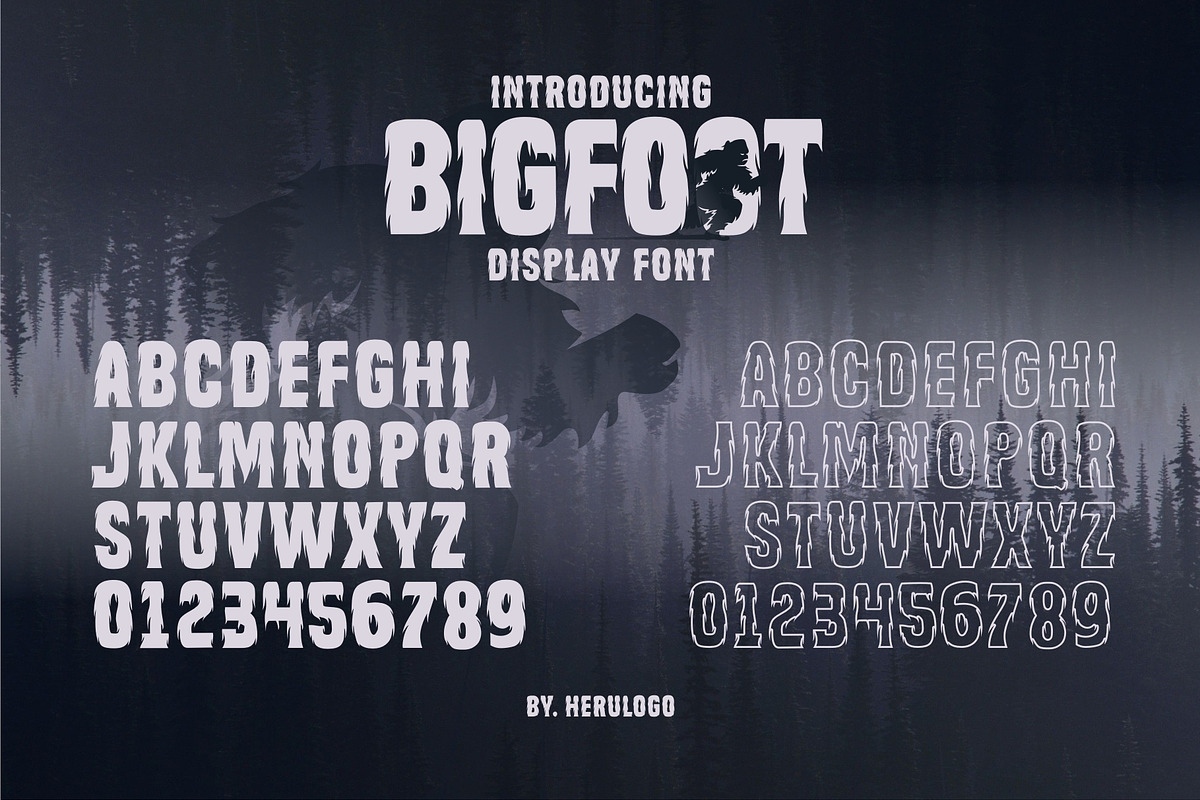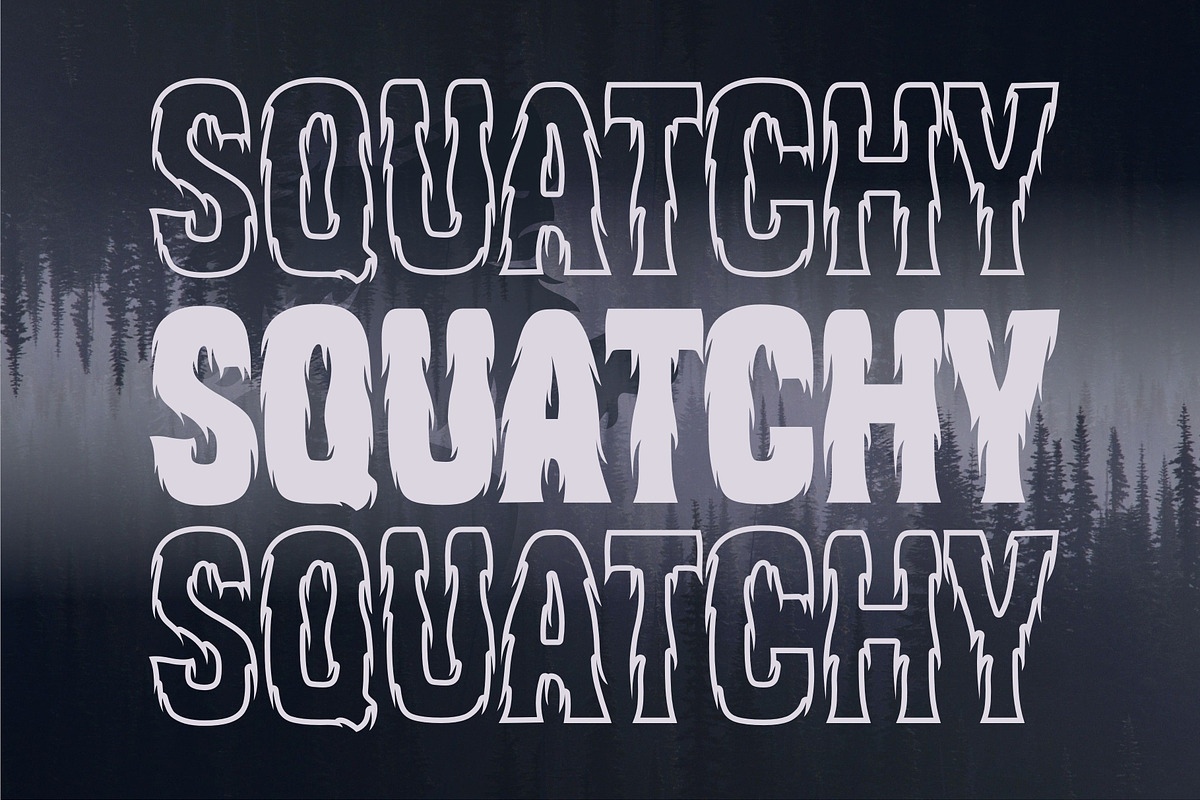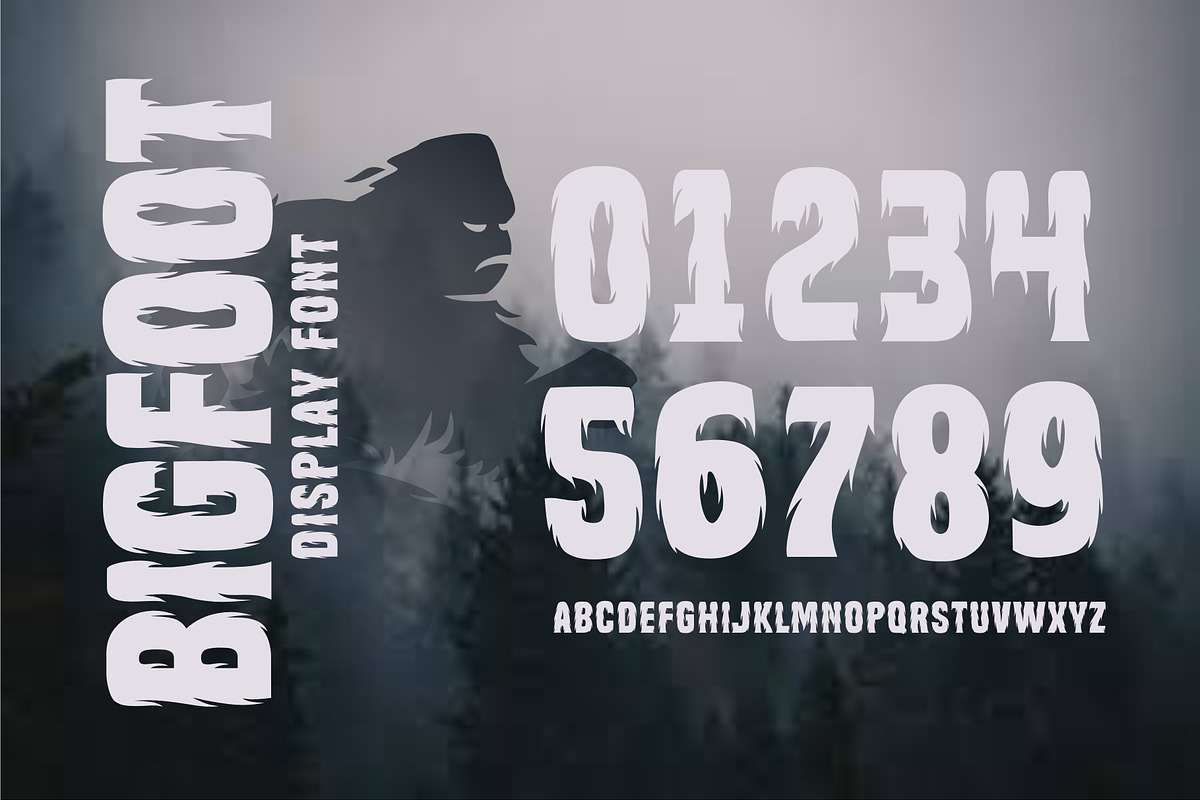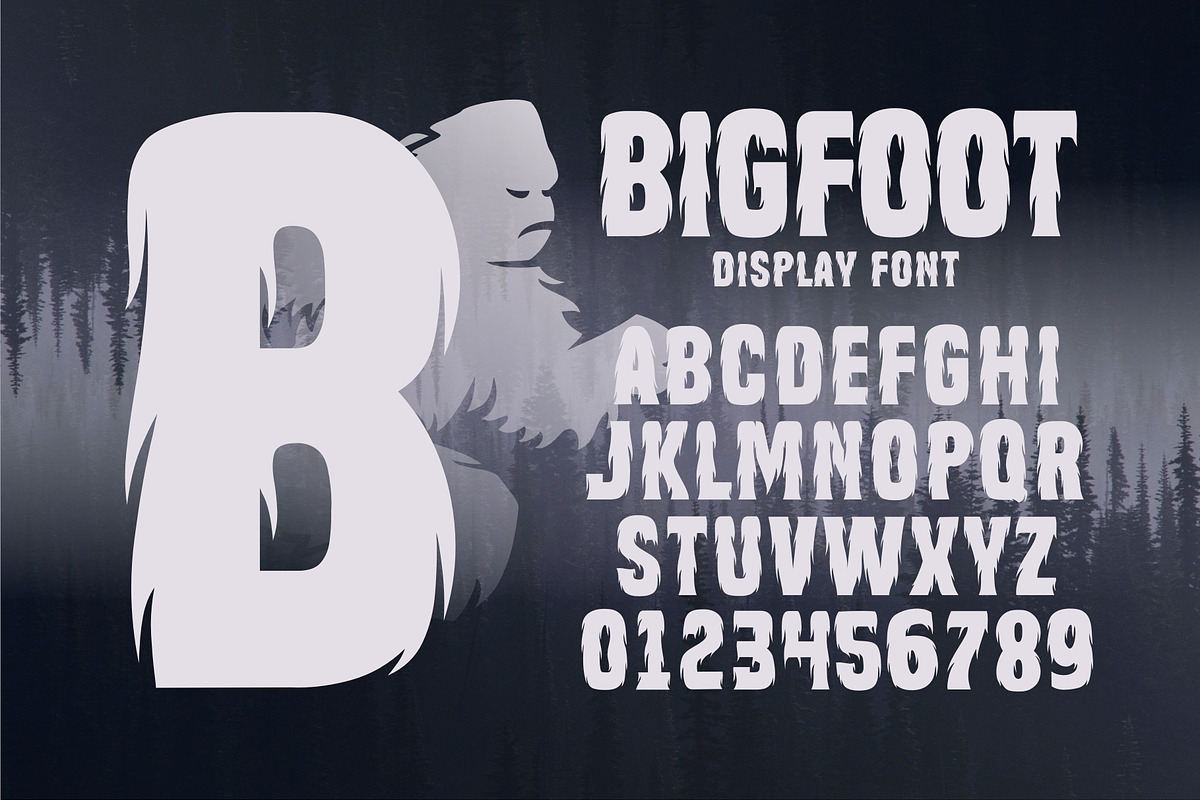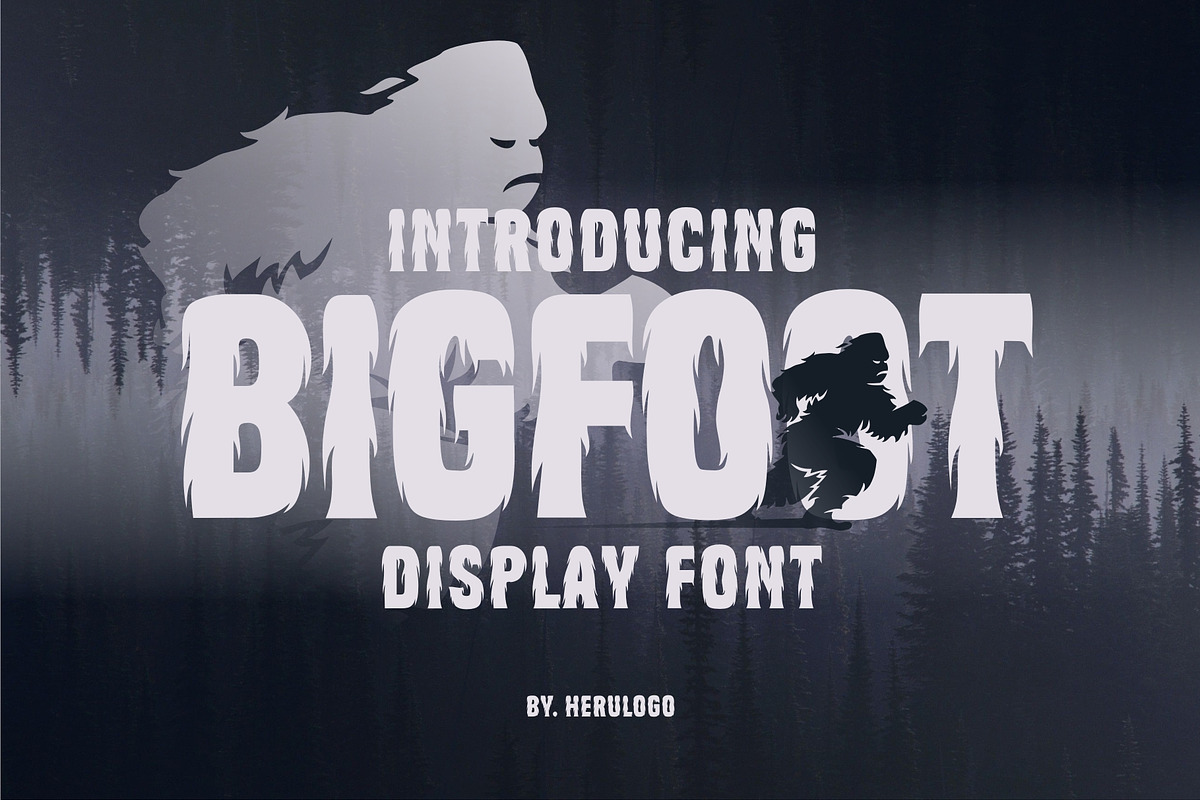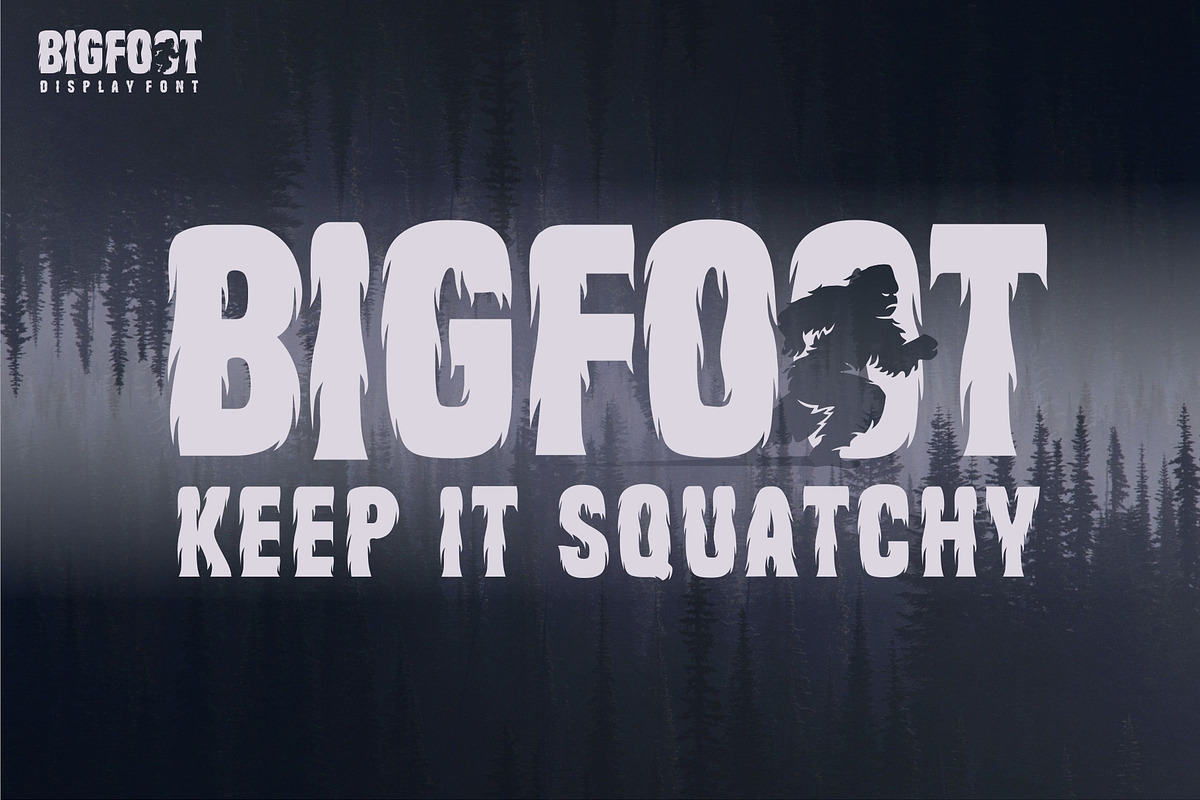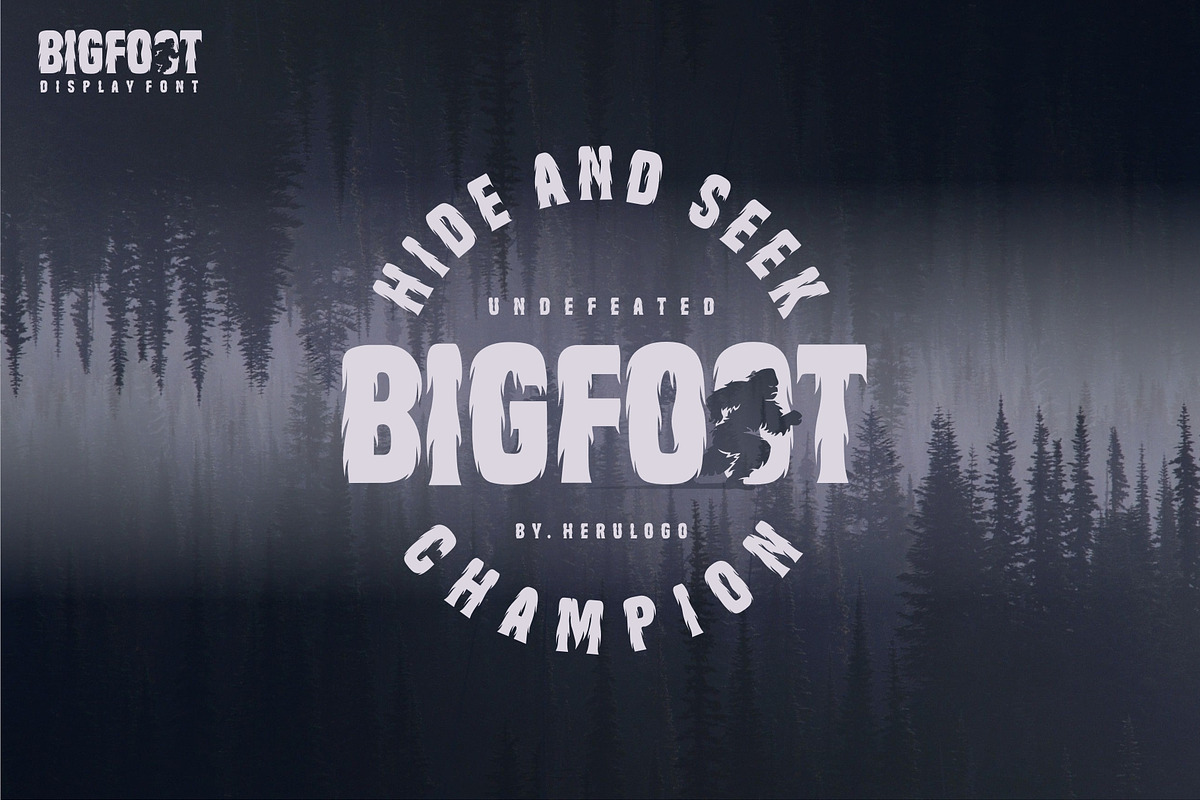
BIGFOOT 2021
Bigfoot is a cool, brushed display font. No matter the topic, this font will be an incredible asset to your fonts’ library, as it has the potential to elevate any creation.